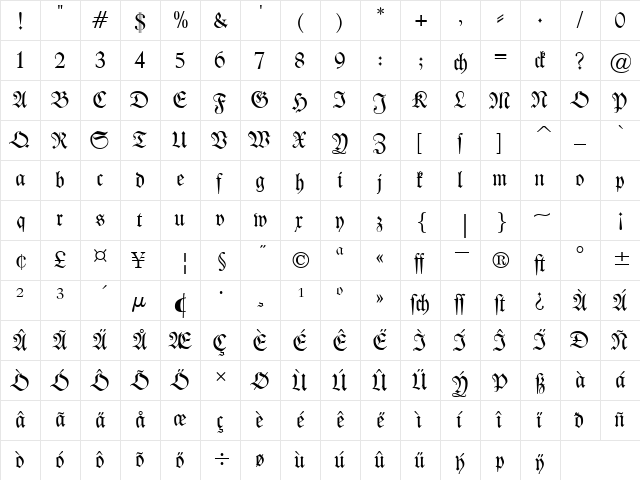
Kleist-Fraktur Regular
| Designer | Dieter Steffmann |
Design Context for Kleist-Fraktur Typeface
Kleist-Fraktur channels the dramatic heritage of Fraktur and Gothic scripts, bringing a sense of historical gravitas to any design.
Well-suited to band logos, craft beer branding, tattoo lettering, and heritage-themed identities.
Font Pairing: Pair with a clean neutral sans-serif for body copy to let Kleist-Fraktur's character lead without overwhelming the composition.
Pro Tip: Use Kleist-Fraktur sparingly at large sizes. Even a single word set in blackletter can define the visual register of an entire design.